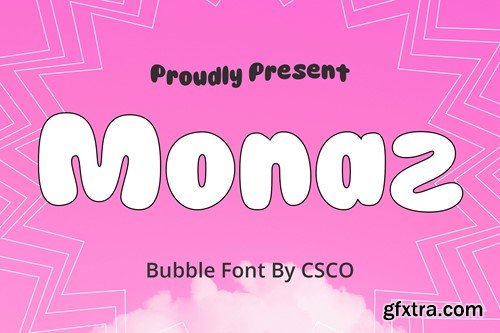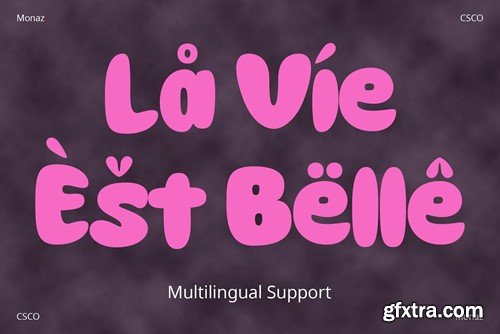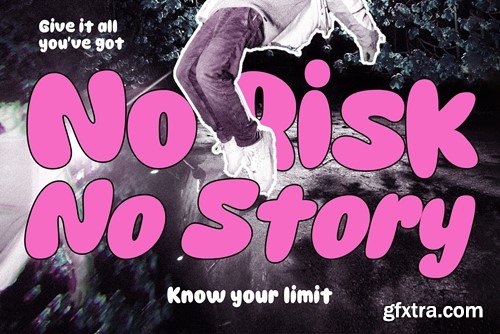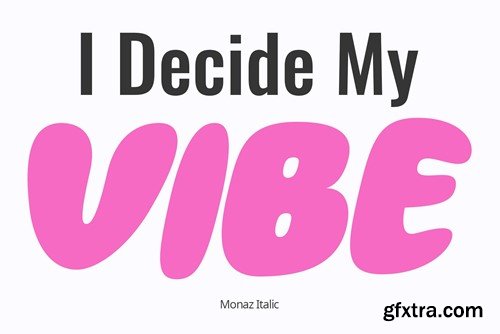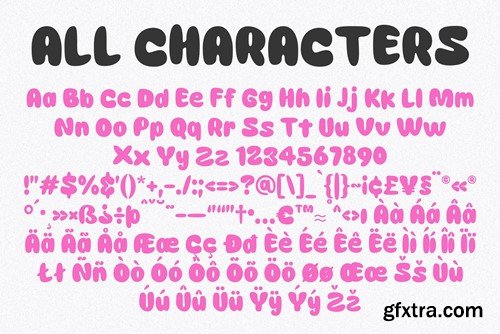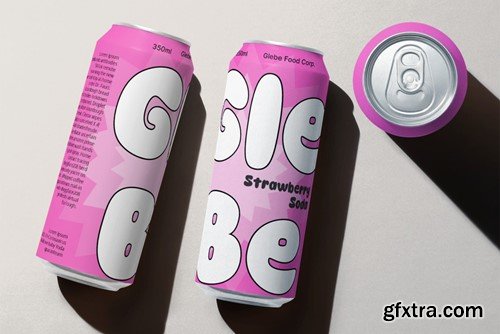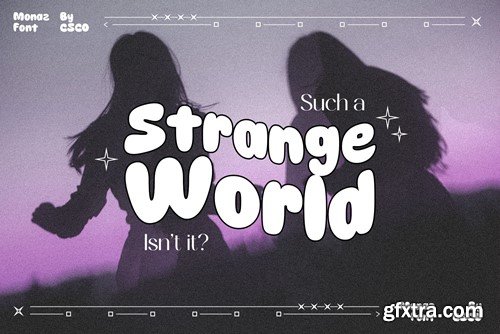
蒙扎 – 泡泡字体 GHSLMPM
Introduction to Monaz – Bubble Font Monaz – Bubble Font, a playful and airy display font, is inspired by the lightness and roundness of bubbles and balloons. Perfect for creating eye-catching headings, logos, and children’s books, this font not only grabs attention but also serves as an ideal choice for fun and whimsical projects. Design and Aesthetics In its design, Monaz – Bubble Font features characters that resemble bubbles, with rounded edges and a bouncy feel. Furthermore, the letters mimic the floating appearance of balloons, thus adding a cheerful and lighthearted touch to any design. Additionally, its rounded forms are easy on the eyes, ensuring readability while preserving its playful charm. Accessibility and Appeal Designed for a wide audience, Monaz – Bubble Font features a simple and clear style that is easy to read. It appeals to all ages, capturing the whimsy of childhood while still being sophisticated enough for adult projects. In summary, this font brings a unique joy and playfulness to any design, making it a valuable addition to any font collection. What you get : Monaz Regular Monaz Italic Features : Uppercase and lowercase characters Numerals and Punctuation (OpenType Standard) Accents (Supports Multilingual Characters) PUA Encoded No specialized software is needed to utilize this typeface. For any inquiries or assistance, please don’t hesitate to get in touch. We appreciate your support in making your creative projects shine! Best regards, Craft Supply Co.